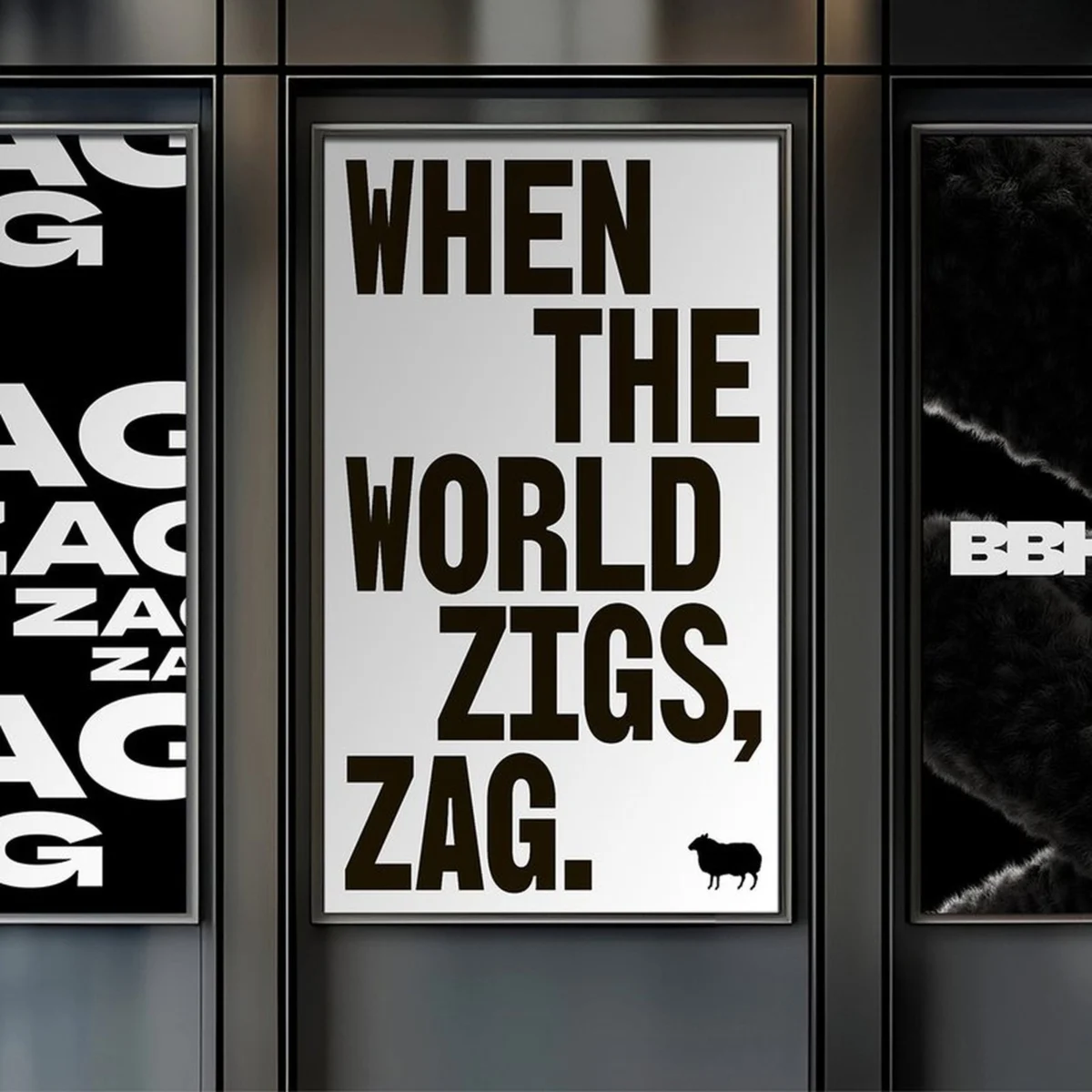
BBH Unveils First Visual Rebrand in 44 Years, Featuring Bespoke Typefaces and Bold Zag Glyphs
BBH, the globally renowned creative agency, has embarked on its first comprehensive visual overhaul in 44 years, a significant undertaking that redefines its identity through three bespoke typefaces and a dynamic system of "zag" glyphs, developed in collaboration with London-based Studio Drama. This extensive rebrand, a testament to the agency’s enduring philosophy, marks a pivotal moment in its rich history, signaling a refreshed commitment to its founding principles while embracing the demands of the contemporary creative landscape.
Founded in 1982 by advertising titans John Bartle, Sir Nigel Bogle, and Sir John Hegarty, BBH quickly distinguished itself with a provocative and unconventional ethos encapsulated in the mantra: "When the world zigs, zag." This defiant philosophy not only shaped the agency’s groundbreaking campaigns for clients ranging from Levi’s to Audi but also cultivated a culture of challenging the status quo. For over four decades, this core belief has been the bedrock of BBH’s success, guiding its strategic thinking and creative output without a significant update to its own visual brand identity. The recent rebrand, therefore, is not merely an aesthetic refresh but a profound exercise in distilling and visually manifesting the very essence of what BBH stands for, now and into the future. The project, meticulously crafted over two years, integrates a comprehensive design system that includes custom typography, an expansive library of zag-inspired graphic elements, and an in-house developed motion language, ensuring consistency and dynamism across all touchpoints.
A Legacy Reimagined: BBH’s Enduring Influence and the Catalyst for Change
The advertising industry, a dynamic and often volatile sector, has witnessed profound transformations since BBH’s inception. In 1982, the landscape was dominated by traditional media – television, print, and radio – with creative agencies serving as the primary architects of brand narratives. BBH emerged during a period of burgeoning creativity in British advertising, quickly establishing itself as a powerhouse through iconic campaigns that defied conventional wisdom. Their work for Levi’s, including the legendary "Launderette" commercial, not only cemented the brand’s cool factor but also redefined fashion advertising. Similarly, their contributions to brands like Audi and British Airways underscored a commitment to strategic insight paired with audacious creativity. This track record positioned BBH as a formidable force, consistently ranking among the top creative agencies globally.
However, the passage of 44 years has brought unprecedented shifts. The advent of the internet, the rise of digital platforms, social media, and the proliferation of content channels have fragmented audiences and revolutionized how brands connect with consumers. In this hyper-competitive environment, where global advertising spend is projected to reach over $700 billion annually, maintaining relevance and a distinct identity is paramount for agencies. While BBH’s "zag" philosophy has proven remarkably resilient, its visual manifestation had remained largely unchanged, a static representation in an increasingly fluid world. The decision to undertake such a significant rebrand after nearly half a century reflects a strategic imperative: to modernize its visual language, ensuring it speaks effectively to contemporary audiences and future clients, without losing sight of the rebellious spirit that defines its heritage.
Global Chief Creative Officer, Anthony Austin, commented on the significance of the undertaking, stating, "Our ‘zag’ mantra has been our North Star for over four decades, guiding us to create work that stands apart. This rebrand is about translating that spirit into a visual language that feels as bold and relevant today as our philosophy did in 1982. It’s a declaration of who we are and who we aspire to be for the next generation of brands."
Crafting a New Visual Language: The Collaboration with Studio Drama
The scale and depth of this identity project underscore the gravity with which BBH approached the challenge of designing for itself. Recognizing the intricate balance between honoring its past and forging a path forward, BBH engaged in a close collaboration with Studio Drama, a highly regarded London-based type studio known for its expertise in bespoke typography, including the distinctive typeface developed for Heinz. The two-year development process was a testament to the meticulous attention to detail and strategic foresight invested in the rebrand.
BBH Rebrand: Typeface and Zag Identity Design
Adam Buckland, Design Director at BBH, played a pivotal role in guiding this extensive process. He emphasized that the development of the typefaces was not merely a superficial exercise in aesthetics but a deeper exploration and extension of the agency’s core values. "We treated the typeface development as an integral part of understanding and articulating our identity," Buckland explained. "Every curve, every weight, every character was debated and refined to ensure it genuinely embodied the BBH spirit. It wasn’t about making things ‘pretty’; it was about giving our values a voice, a visual form that could resonate globally."
Studio Drama, co-founded by Chris Nott and Paul Hickson, brought a specialized skill set to the project. Their methodology often involves a deep dive into a client’s history, culture, and aspirations to create typography that is not just functional but inherently expressive. Chris Nott, co-founder and Type Director at Studio Drama, described the partnership as a "true collaboration," one that pushed both parties beyond conventional boundaries. "Working with BBH was unique because their brand philosophy is so strong and so deeply ingrained," Nott stated. "Our challenge was to take ‘zag’ – an abstract concept of defiance and distinctiveness – and translate it into tangible, usable typefaces that could carry that weight. It required constant dialogue, experimentation, and a shared commitment to building something that respected heritage while leaving ample room for innovation and future expression." The extensive timeline allowed for iterative design, rigorous testing across various media, and a comprehensive approach to creating a future-proof visual system.
Typefaces as Tributes: Honoring the Founders
A central and deeply symbolic element of the BBH rebrand is the creation of three bespoke typefaces, each meticulously designed to pay tribute to one of the agency’s iconic founders: John Bartle, Sir Nigel Bogle, and Sir John Hegarty. This approach imbues the typographic system with historical reverence and a narrative depth that extends beyond mere functionality.
• BBH Bartle: Designed for clarity and impact, BBH Bartle features broad, confident letterforms that project a sense of authority and straightforwardness. This typeface is intended to reflect John Bartle’s reputation for strategic acumen and his direct, no-nonsense approach to problem-solving. It embodies the analytical rigor and clarity of thought that Bartle brought to the agency, ensuring that BBH’s messaging is always precise and impactful. Its robust structure provides a solid foundation for the agency’s communication, reflecting Bartle’s role in building the agency’s formidable strategic capabilities.